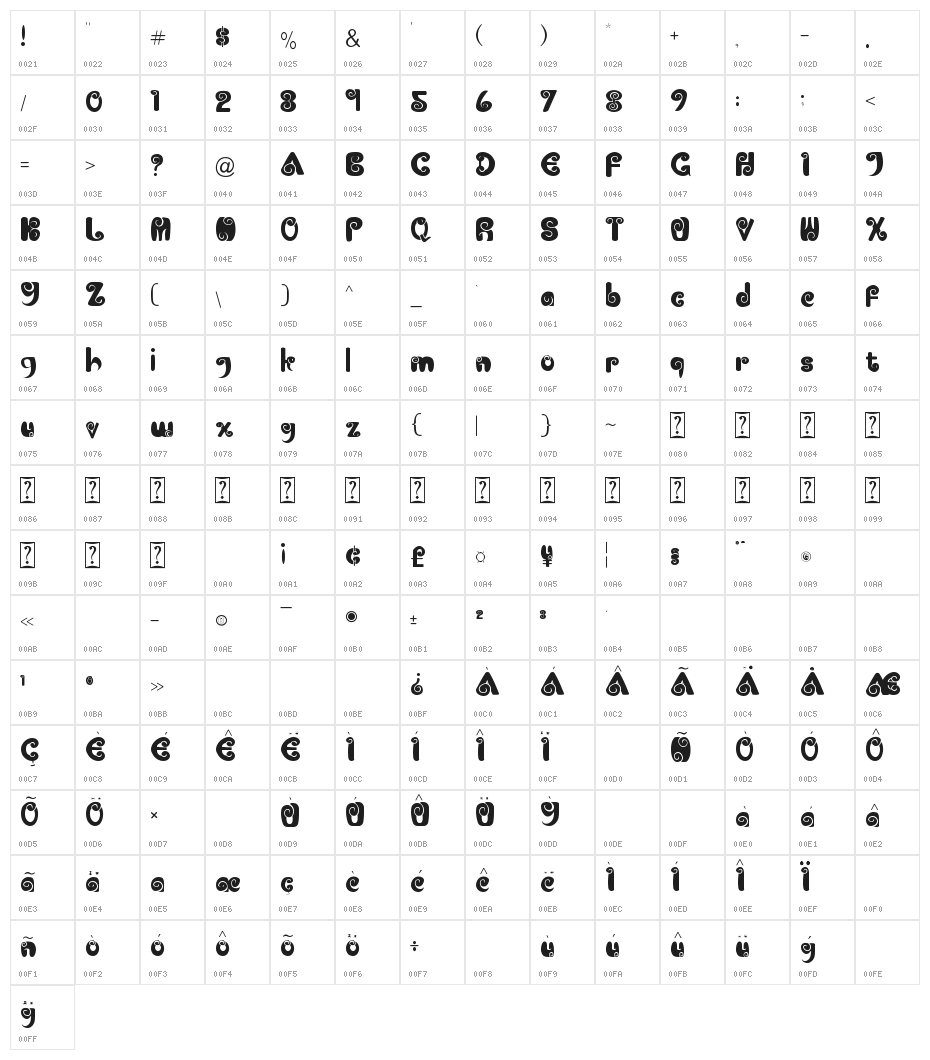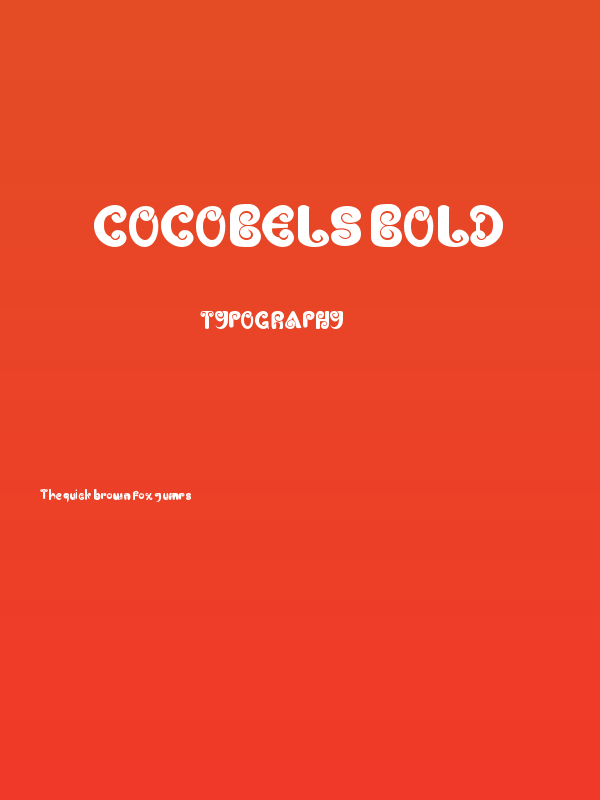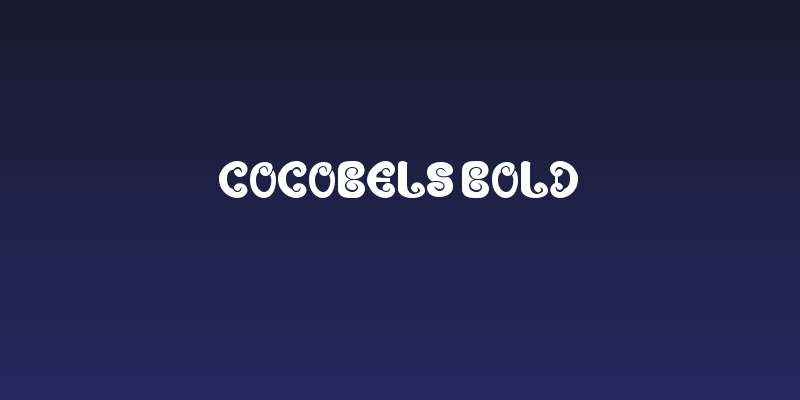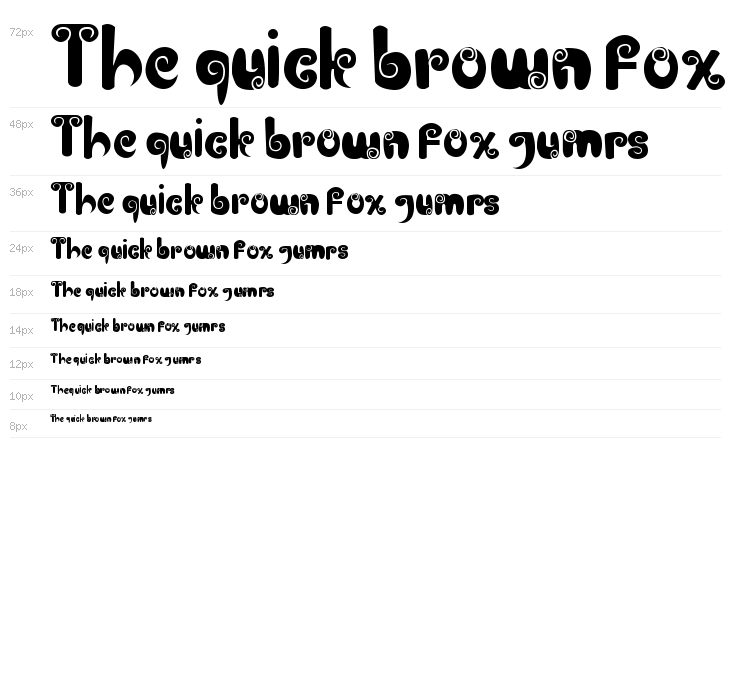
Cocobels bold Font
Cocobels bold Description
This font features a bold and playful design with a decorative flair. Each character is uniquely crafted with swirls and curves, giving it a whimsical and artistic appearance. The uppercase letters are particularly striking, with intricate details that make them stand out. The lowercase letters maintain the same playful style, ensuring consistency throughout. Numbers and special characters are equally stylized, adding to the font's overall charm. This font is perfect for projects that require a touch of creativity and fun, making it ideal for artistic and decorative purposes.
| Proposed Projects | Ideal for creative projects such as posters, invitations, children's books, and branding that requires a whimsical touch. |